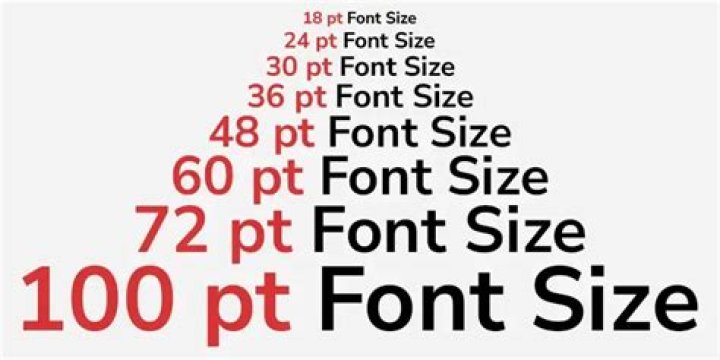
What size is 10pt font?
3.53 mm
So if you enter a 10 pt font size in Microsoft Word or Adobe InDesign, you define that your font will have a size of 3.53 mm.
What is a point in font size?
Font sizes are measured in points; 1 point (abbreviated pt) is equal to 1/72 of an inch. The point size refers to the height of a character. Thus, a 12-pt font is 1/6 inch in height.
What is a type size?
All measurements of type originally referred to the dimensions of a cast piece of metal bearing a single character. One pound of type, in any point size, covered about 3 square inches. The height, called type height, is the distance from the face that touches the paper to the feet.
What size font is handwriting?
If the natural handwriting size for a particular font is about 1/2 inch from the very top to the very bottom, then the font size should be 36 points (1/2 of 72). If the natural size is about 1/4 inch total, then the font size is 18 points (1/4 of 72).
What font is the Bible printed in?
The typeface of the Gutenberg Bible is based on the standard hand-written letterform used in religious works of the late-medieval period: Textura, also referred to as Blackletter, or Gothic.
Is 5pt readable?
The size of your font also contributes to legibility. For dark font on lighter backgrounds, 5 pt font is the minimum we recommend printing. Anything smaller than 5 pt will be extremely difficult to read, unless it’s all capitalized. Keep font size around 7 pt or larger, especially if it is very thin.
What is point type?
Point type is added to a document at a specific location (or point) in the image. In contrast, area type (also called paragraph type) fills a portion (or area) of the image.
What size is a point?
In typography, the point is the smallest unit of measure. It is used for measuring font size, leading, and other items on a printed page. The size of the point has varied throughout the history of printing. Since the 18th century, the point’s size has varied from 0.18 to 0.4 millimeters.
How do you measure a type size?
Type size is measured in points from the top of the ascender to the bottom of the descender. Picas are use to measure width, such as the width of a typeset column (length of line) or the space between columns.
How is type measure?
The height of type is measured in points, and the width of a letter or a line of type is measured in picas. Point size is the height of the body of a letter in a typeface; originating in metal type, it was a slug of lead the typeface was set upon. The width of a typeface is measured in characters per pica.
What is a 36 point font size?
Points dictate the height of the lettering. There are approximately 72 (72.272) points in one inch or 2.54 cm. For example, the font size 72 would be about one inch tall, and 36 would be about a half of an inch. The image shows examples of font sizes ranging from 6 pt to 84 pt.
What is a 12-point font?
They are most commonly used with type specifications. Word uses point sizes to specify the height of all the fonts it uses. Thus, when you use a 12-point type, you are using one that occupies a character box approximately 12/72 (or 1/6) of an inch high. Likewise, 72-point type uses a character box that is about one inch tall.
What is the point system in typography?
The point system is the standard unit of measurement for type. It originated centuries ago, when points referred to the size of the metal body that accommodated each character. Since each size of a typeface had to be cut individually, point size was determined by the distance from the height of the tallest ascender to the tip…
What is 72-point type?
Likewise, 72-point type uses a character box that is about one inch tall. In typesetting, points are also the measurement of choice when specifying line leading (as discussed in the next tip). It is not uncommon to specify type in the format 10/12, meaning 10-point type on 12-point line leading.